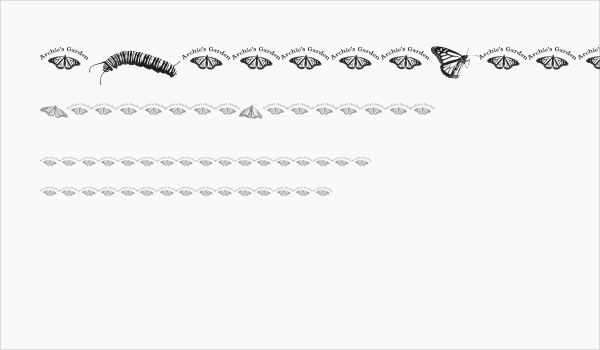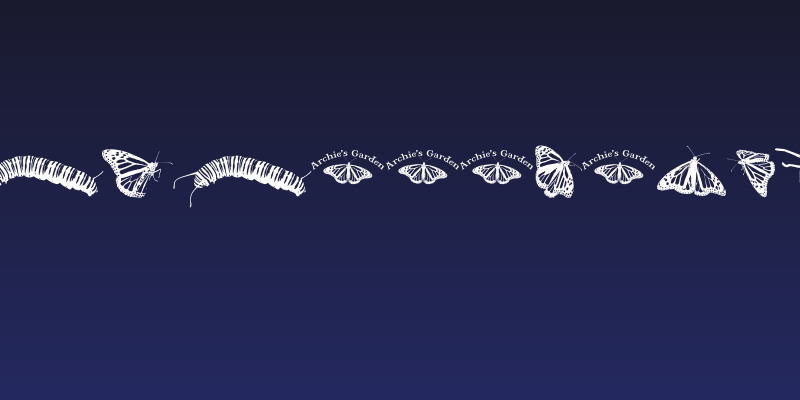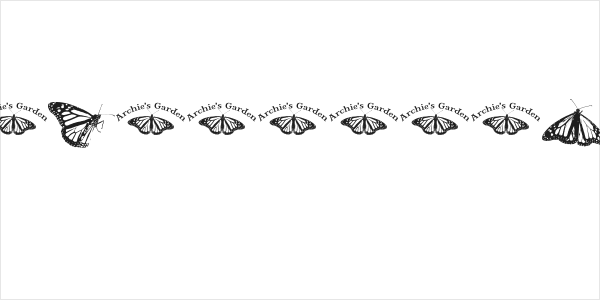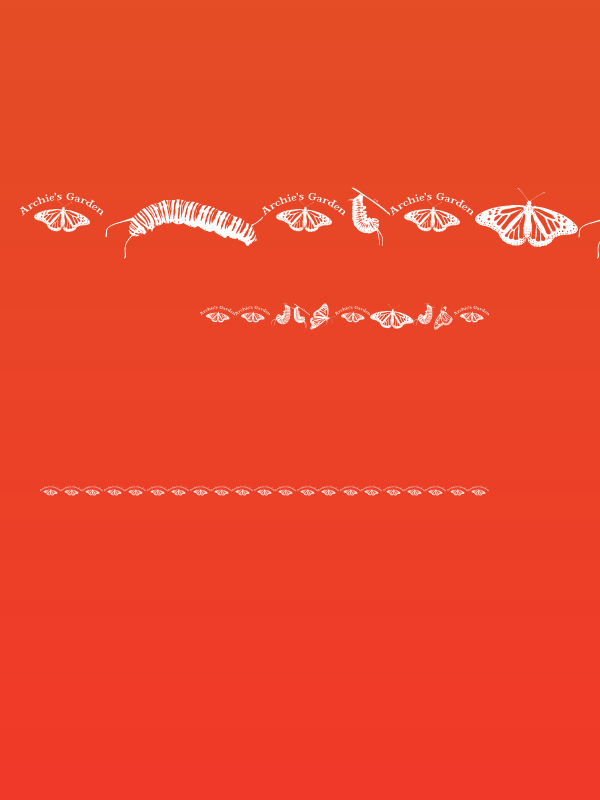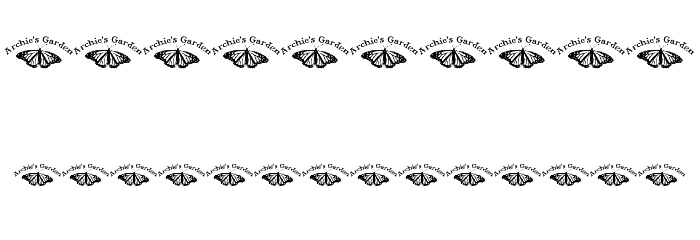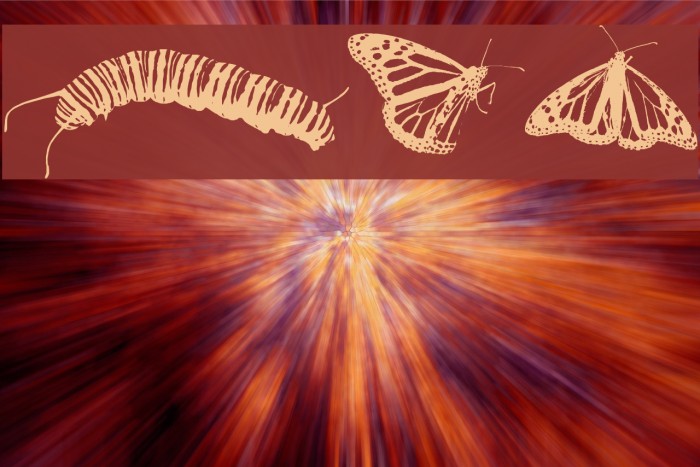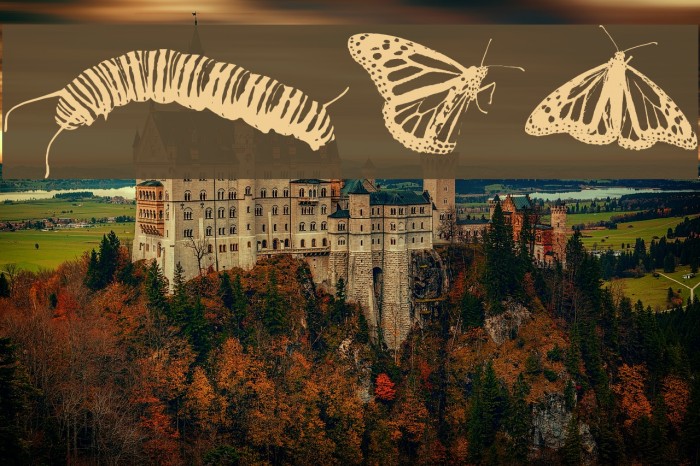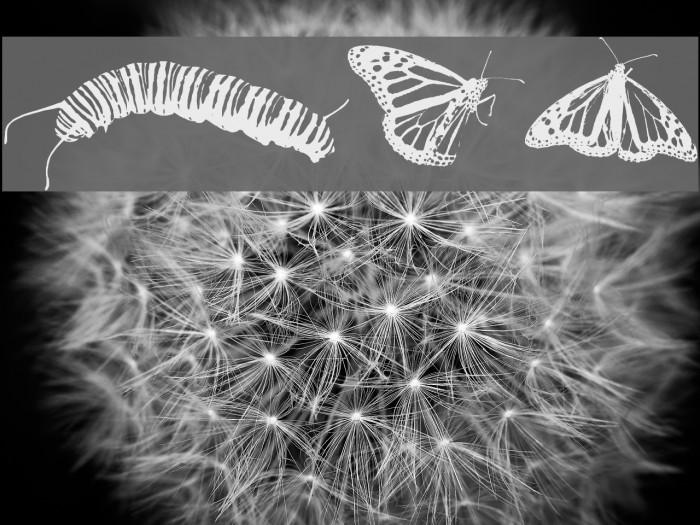
WL Royal Flutter Dingbats Font
WL Royal Flutter Dingbats Description
This collection features a series of intricate dingbats inspired by butterflies and caterpillars, showcasing various stages of metamorphosis. The designs are highly detailed, capturing the delicate wings and segmented bodies with precision. These elements are perfect for adding a whimsical and natural touch to creative projects. The imagery is consistent throughout, maintaining a cohesive theme that celebrates the beauty of nature. Ideal for decorative borders, embellishments, or thematic designs, these dingbats offer a unique way to enhance visual storytelling.
| Use Case | Decorative elements, Borders, Thematic designs |
| Proposed Projects | Ideal for nature-themed designs, scrapbooking, invitations, and decorative borders. |